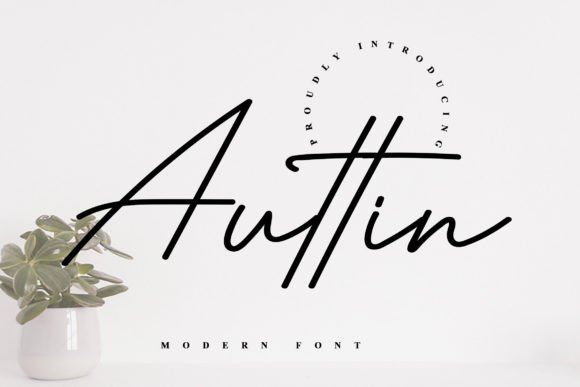
Introducing the Auttin Font: The Epitome of Charm and Creativity
In the realm of digital artistry, where words take flight and expressions find their canvas, there exists a font that captures the essence of charm and creativity like no other: Auttin. A script font crafted with meticulous care, Auttin invites you on a journey of visual delight, transforming your designs into captivating masterpieces.
As a primary school teacher, you understand the profound impact that aesthetics can have on a child's learning experience. Auttin is your secret weapon to create classroom materials that are both engaging and informative. With its playful curves and elegant flourishes, Auttin breathes life into worksheets, presentations, and posters, making lessons come alive in a symphony of colors and shapes.
Imagine the joy on your students' faces as they embark on their educational adventures, guided by the enchanting strokes of Auttin. Letters dance across the page, captivating their attention and sparking their imagination. The classroom transforms into a magical realm where learning feels like an enchanting journey rather than a mundane routine.
Beyond the walls of the classroom, Auttin finds its home in a myriad of creative endeavors. Let your imagination run wild as you craft stunning YouTube banners that draw viewers in with their captivating charm. Design cover logo mockups that exude professionalism and sophistication. Create wedding invitations that are as unique and beautiful as the love they celebrate.
With Auttin, your designs transcend the ordinary and become expressions of your individuality. It's the perfect font for crafting ID cards that reflect your personal style, or for creating flyers that demand attention with their eye-catching allure. Even simple crafts take on a new dimension of enchantment when adorned with the graceful strokes of Auttin.